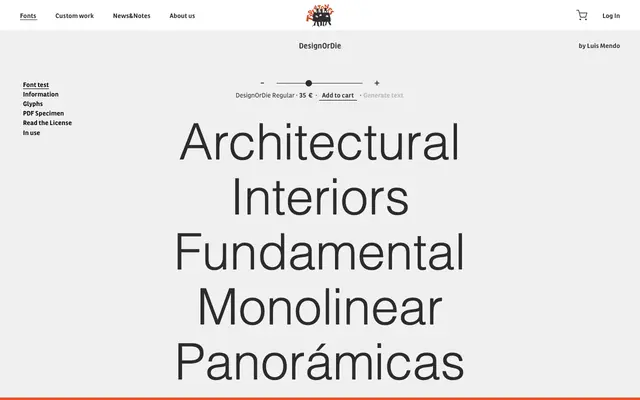
DesignOrDie
A single-weight monolinear display typeface by Luis Mendo, with an architectural and graphic character.
Released by Type-ø-tones and designed by Luis Mendo, DesignOrDie is a monolinear display face available in one weight. The page associates it with architectural and interior contexts, suggesting a clean, structural aesthetic suited to editorial and graphic design work. Its single-style offering makes it a focused, opinionated choice rather than a workhorse family.
Described on the page as monolinear, and the name and single-weight release suggest a display-oriented typeface with uniform stroke widths, placing it firmly in the display category with a monolinear subcategory.